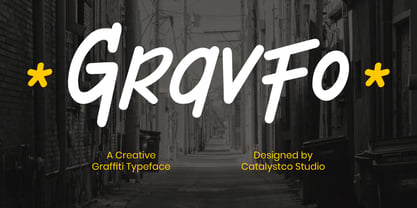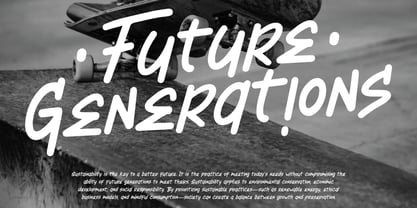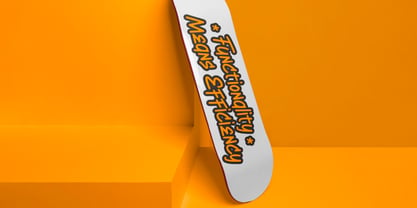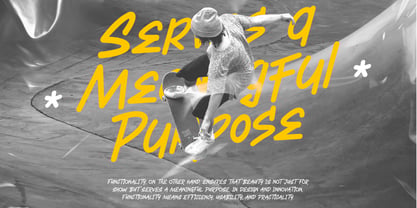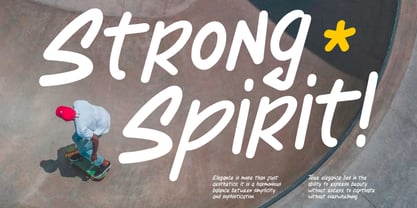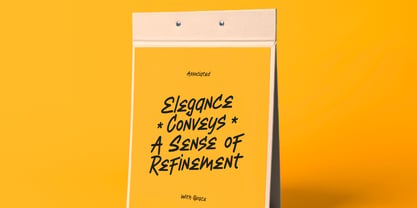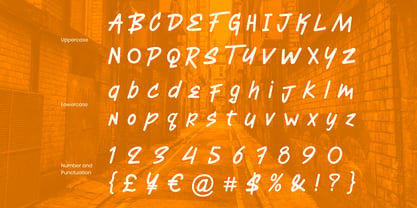
Gravfo
by Catalystco Std
The Gravfo Font Family was designed by and published by Catalystco Std. Gravfo contains 1 styles. More about this family
Gravfo is a bold and energetic graffiti-style handwritten font that captures the essence of urban street culture. This typeface combines raw spontaneity with fluid curves, making it ideal for edgy creative projects. It includes uppercase and lowercase letters, numerals, punctuation, and multilingual support. Gravfo is relevant for creative professionals, music labels, apparel brands, and visual artists who want to channel the energy of the streets into their designs. This font fits perfectly in campaigns targeting youth, action sports, music scenes, and urban culture